b•v-h type
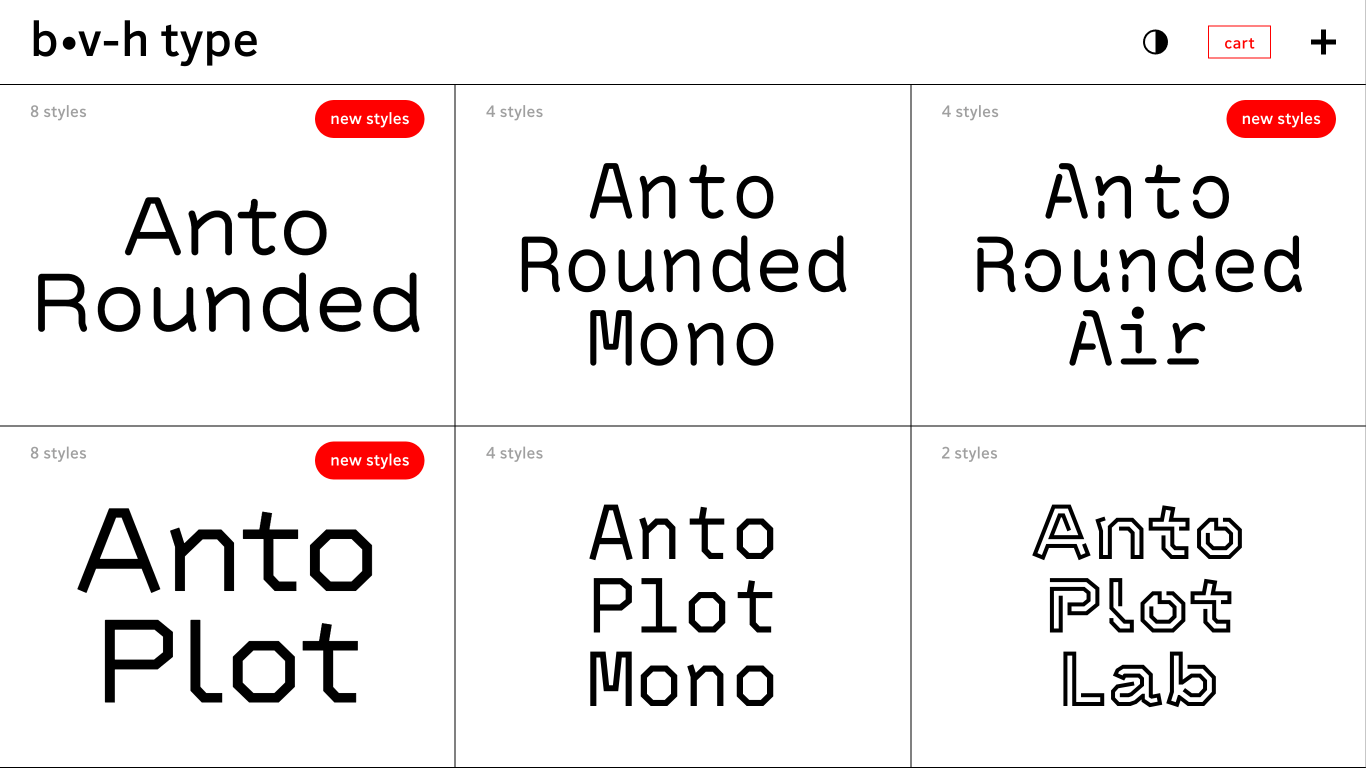
France
2022
b•v-h type is a Paris-based type foundry established in 2022 by Swiss typographer André Baldinger and German graphic designer Toan Vu-Huu. As an extension of their design studio, baldinger•vu-huu, they specialize in creating contemporary and original typefaces that blend conceptual ideas with distinctive formal elements. Notable typefaces include Bart, which combines Oldstyle, Transitional, and Neoclassical elements, and Anto Plot Mono, a monospaced variant of the Anto family. They also offer a 70% lifetime discount on their entire catalog for students, making quality typography more accessible.